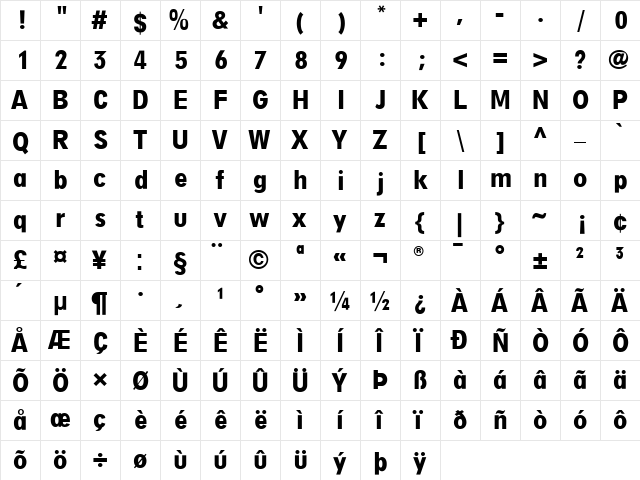
Digi Grotesk Bold Condensed Regular Font Preview
Design Context for Digi Grotesk Bold Condensed Typeface
Digi Grotesk Bold Condensed takes a clean, functional approach — its unadorned letterforms prioritise legibility and work reliably across screen and print environments. The heavy weight commands attention and anchors typographic hierarchies. The condensed width makes it efficient for tight spaces without sacrificing legibility.
Well-suited to navigation labels, product packaging, and anywhere legibility at scale is essential.
Font Pairing: Use Digi Grotesk Bold Condensed for headlines alongside a lighter-weight sans or serif for body copy to establish clear visual hierarchy.
Pro Tip: Use Digi Grotesk Bold Condensed tightly set in headlines and banners — its condensed proportions make it ideal for maximum impact in minimum horizontal space.